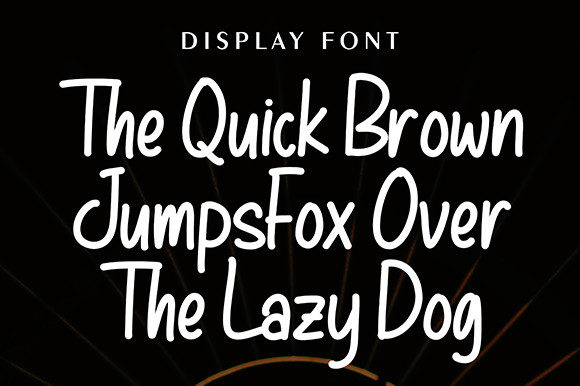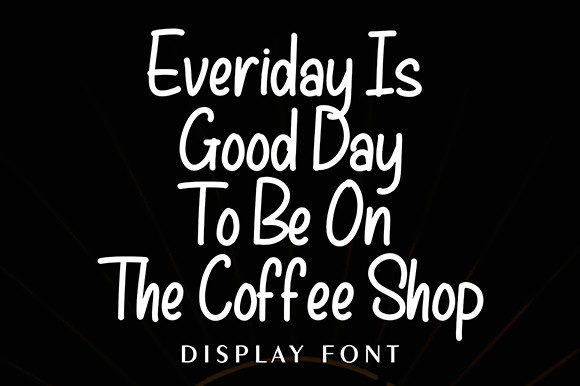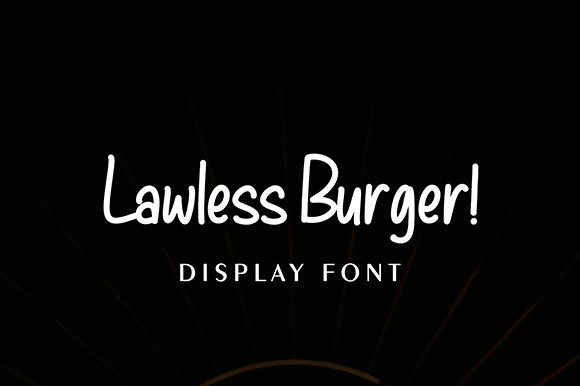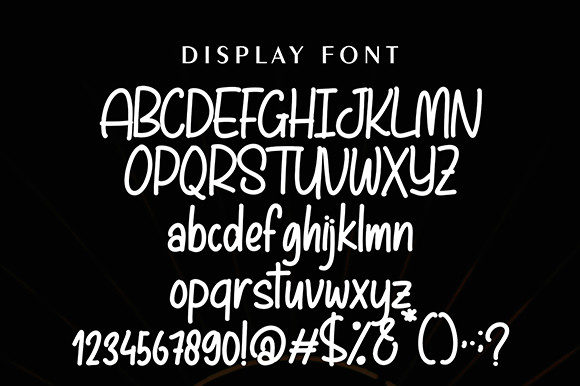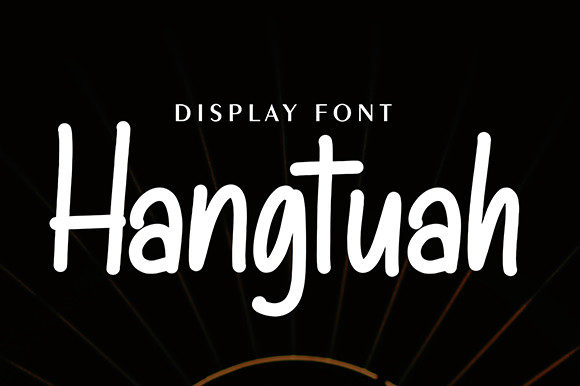
Introducing Hangtuah Font: The Perfect Choice for Designs that Need a Lovely Touch
In the world of design, fonts play a crucial role in conveying the message and tone of a project. Whether you’re a graphic designer, a crafty DIY enthusiast, or a digital artist, finding the right font can make all the difference. If you’re looking for a font that adds a touch of warmth and playfulness to your designs, look no further than Hangtuah Font. In this article, we’ll explore the features and benefits of Hangtuah Font, and why it’s an excellent choice for cartoon-related designs, children’s games, and any creation that requires a lovely touch.
What is Hangtuah Font?
Hangtuah Font is a casual and clean handwritten font that exudes a sense of friendliness and approachability. Its smooth, flowing lines and rounded edges give it a soft, gentle feel that’s perfect for designs that need to appeal to a younger audience or convey a sense of whimsy. Hangtuah Font is versatile and can be used for a wide range of projects, from digital illustrations and children’s books to craft projects and DIY signage.
Key Features of Hangtuah Font
So, what makes Hangtuah Font so special? Here are some of its key features:
- Clean and Legible: Hangtuah Font is easy to read, even at small sizes, making it perfect for designs that require a lot of text, such as children’s books or instructional materials.
- Casual and Handwritten: The font’s casual, handwritten feel gives it a personal and approachable tone that’s perfect for designs that need to connect with their audience on a more intimate level.
- Versatile: Hangtuah Font can be used for a wide range of projects, from digital designs to print materials, and can be easily adapted to suit different styles and themes.
- Lovely and Whimsical: The font’s playful, whimsical feel makes it perfect for designs that need to add a touch of magic and wonder, such as children’s games or fantasy-themed illustrations.
Use Cases for Hangtuah Font
So, what kinds of projects is Hangtuah Font best suited for? Here are some ideas to get you started:
- Cartoon-related Designs: Hangtuah Font is perfect for cartoon-themed designs, such as character illustrations, comics, or animated videos.
- Children’s Games: The font’s playful, whimsical feel makes it an excellent choice for children’s games, puzzles, or educational materials.
- Craft Projects: Hangtuah Font is a great choice for craft projects, such as DIY signage, party decorations, or scrapbooking.
- Digital Illustrations: The font’s smooth, flowing lines make it perfect for digital illustrations, such as portraits, landscapes, or abstract designs.
Tips for Using Hangtuah Font
Here are some tips for getting the most out of Hangtuah Font:
- Experiment with Different Sizes: Hangtuah Font looks great at a range of sizes, from small and delicate to large and bold.
- Pair it with Other Fonts: Hangtuah Font pairs well with other fonts, such as sans-serif fonts or script fonts, to create interesting and dynamic typography.
- Use it for Headings and Body Text: Hangtuah Font is legible enough to use for body text, but it’s also dramatic enough to use for headings and titles.
In conclusion, Hangtuah Font is a versatile and charming font that’s perfect for designs that need a lovely touch. Its clean, handwritten feel and whimsical tone make it an excellent choice for cartoon-related designs, children’s games, and any creation that requires a touch of magic and wonder. Whether you’re a designer, a crafter, or a DIY enthusiast, Hangtuah Font is a great addition to your font library.